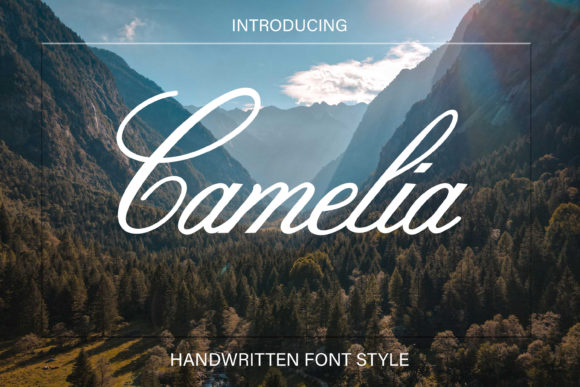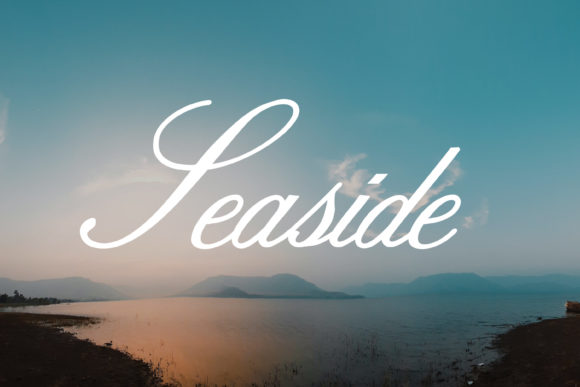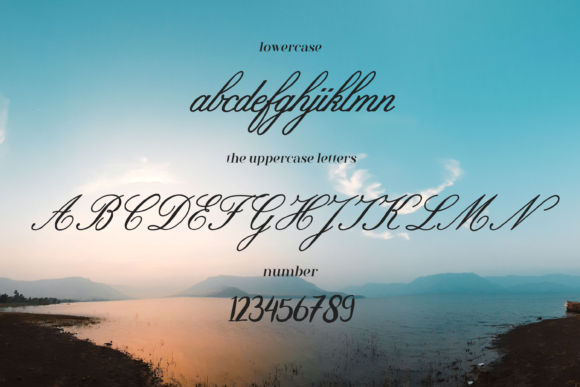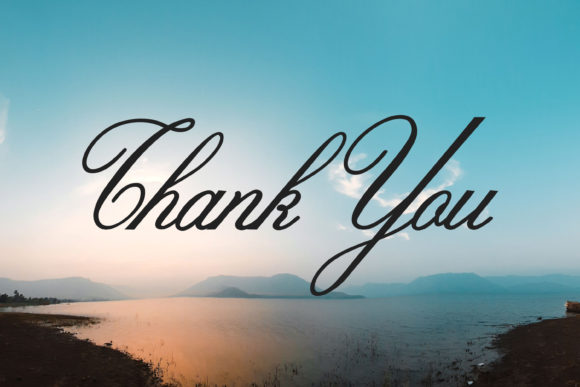
Camelia Font
About Camelia Font
**Camelia** steps into the spotlight as an elegant and stylish handwritten font, making its mark on wedding designs, birthday cards, and other creative projects that crave a personal touch. This font brings a touch of sophistication to your creations, adding a layer of elegance and style.
The elegance of Camelia shines through in its carefully crafted characters. Each letter is designed with a sense of refinement, contributing to the overall sophisticated aesthetic of the font. This makes Camelia an ideal choice for projects that demand a touch of class and elegance.
The stylish handwritten nature of Camelia gives it a personal and authentic feel. The characters flow seamlessly, creating a script that feels both modern and timeless. This versatility allows the font to adapt to various design contexts, enhancing the overall visual experience.
Camelia finds its perfect niche in wedding designs and birthday cards, where a personal note is crucial. The font adds a layer of charm and sophistication to invitations, greeting cards, and other celebratory materials. Its ability to convey a sense of personalization makes it a valuable asset for projects that seek to create a connection.
Adding Camelia to your creative arsenal ensures that your designs carry an elegant and stylish signature. Whether used for logos, branding materials, or any creative endeavor, this font stands ready to elevate your projects with its timeless and sophisticated charm.
In essence, Camelia goes beyond being just a font; it becomes a design companion that effortlessly combines elegance and style. Embrace the sophistication that comes with incorporating Camelia into your creations, and watch as it adds a personal note to your wedding designs, birthday cards, and beyond.